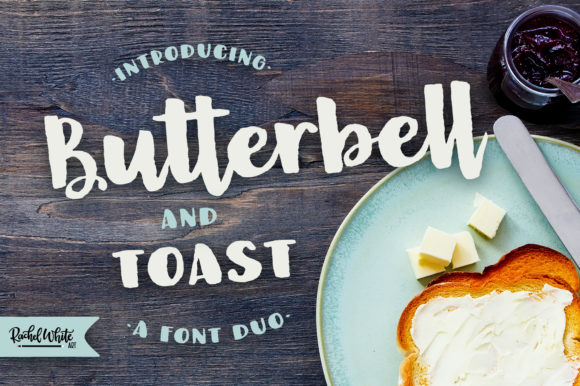
The Sweetest Font Duo: A Deep Dive into Butterbell & Toast
I’ll never forget the time I was working on a branding project for a trendy new bakery, and I just couldn’t find the perfect font to capture their playful yet elegant vibe. The client wanted something that would make their customers’ mouths water, and I was determined to deliver. That’s when I stumbled upon Butterbell & Toast, a delightful font duo that’s been a game-changer for my design projects ever since.
- ✨ Sweet and playful vibe: These fonts are perfect for projects that need a touch of whimsy and fun.
- ✅ Highly versatile: From baking and desserts to crafts and hobbies, Butterbell & Toast can adapt to various design contexts.
- 💕 Easy on the eyes: The fonts’ gentle curves and rounded edges make them a joy to read and look at.
Of course, no font is perfect, and Butterbell & Toast have a few minor quirks:
- 🤔 Limited use of uppercase letters: While the fonts do come with uppercase letters, they’re not as stylized as the lowercase ones.
- ⚠️ Glyph compatibility issues: Some glyphs might not work seamlessly across different platforms or software.
Rumor has it that the creator of Butterbell & Toast was a pastry chef turned designer, who wanted to bottle the magic of her favorite baking moments into a font duo. Whether or not that’s true, it’s clear that these fonts were crafted with love and a deep understanding of what makes design sweet and delightful.
| What makes Butterbell & Toast unique? | Their playful, sweet vibe and versatility across various design contexts. |